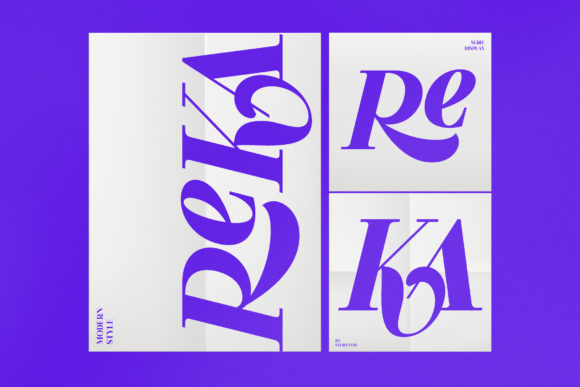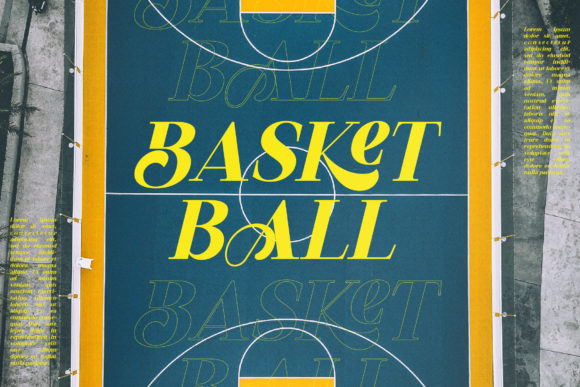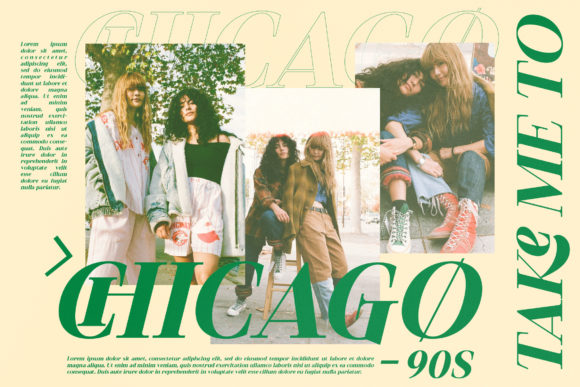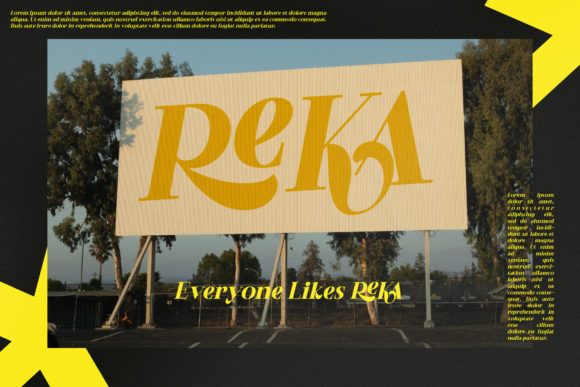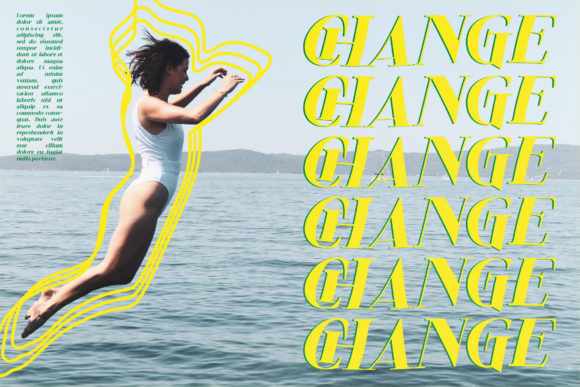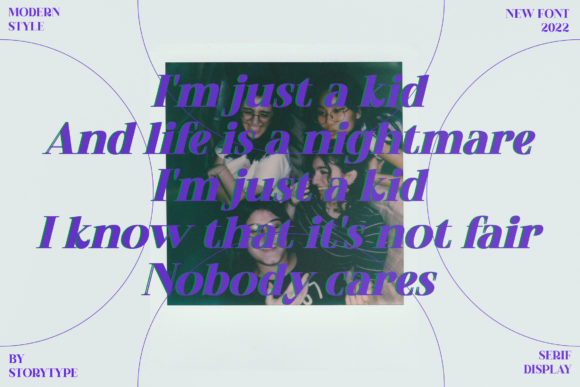
Introduction to Reka Font
Have you ever been working on a creative project, pouring your heart and soul into every detail, only to feel like something’s missing? That’s when you stumble upon the perfect design resource – a font that brings your ideas to life. For me, that moment happened when I discovered the Reka Font. Its bold and stylish serif design immediately caught my attention, and I knew I had to learn more.
As a designer, I can attest that finding the right font can make all the difference in a project. It’s not just about aesthetics; it’s about conveying the message and emotion you want to convey. The Reka Font is a high-quality, PUA-encoded font that allows you to access all of its glyphs and swashes with ease. This means you can take your creative projects to the next level without any hassle.
With the Reka Font, you can add a touch of sophistication and elegance to your designs. Whether you’re working on a logo, brochure, or website, this font is sure to impress. Plus, it’s free to download, making it a valuable addition to any designer’s toolkit. So why settle for a mediocre font when you can have a high-quality design resource like the Reka Font?
Key Features of Reka Font
- Includes a variety of unique characters and glyphs, making it suitable for various design applications.
- Transparent background, allowing for easy integration with different design elements and backgrounds.
- Perfect for designers and artists working on creative projects, requiring a high-quality design resource with a transparent background.
Honest Review: Reka Font
As a designer, I’m always on the lookout for high-quality design resources that can elevate my creative projects. Recently, I stumbled upon the Reka Font, and I must say, it’s been a game-changer.
What works well is the font’s versatility. It comes in a variety of styles, from bold and playful to elegant and sophisticated. This makes it perfect for a range of creative projects, from logos to typography-heavy designs. The Reka Font is also available for free download, which is a major plus!
- ✨ High-quality design with a transparent background, making it easy to use in any design project
- ✨ Versatile font styles that cater to different design needs
One limitation of the Reka Font is its limited compatibility with certain software. I found that it doesn’t work well with older versions of Adobe Illustrator. However, this is a minor issue, and the font’s benefits far outweigh its limitations.
Overall, I’m thoroughly impressed with the Reka Font. Its high-quality design, versatility, and free download make it an excellent design resource for any creative project. I highly recommend it to fellow designers looking to elevate their designs with a premium font.
Use Reka Font in combination with other design elements to create a cohesive and visually appealing design. Experiment with different font sizes and styles to add depth and interest to your project.
Reka Font is commonly used in branding and marketing materials, such as business cards, brochures, and website headers. It’s also a popular choice for social media graphics and presentations.